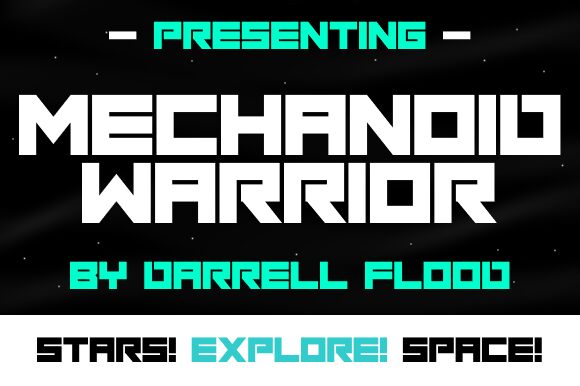
Mechanoid Warrior Italic
Mechanoid Warrior Italic, from the Mechanoid Warrior font family, emerges as a commanding presence in the realm of typography. Designed by Hawtpixel, this bold display typeface exudes a futuristic aesthetic that is both assertive and unapologetically avant-garde. Its extra-expanded width and italicized stance create a dynamic tension that captures movement and speed, perfect for invoking the essence of technology and progress.
The stark contrast of its angular cuts against solid blocks of black makes it visually impactful—ideal for grabbing attention in high-tech branding, game interfaces, or promotional materials for science fiction films. The font's robust weight ensures it stands out even when used sparingly, allowing designers to make a statement with minimalistic layouts.
Mechanoid Warrior Italic is not just a font; it's an ode to modernity. Its unique characteristics offer endless creative possibilities where boldness and innovation are at the forefront. With such distinctive style cues, this typeface is set to propel your design into the next dimension of visual storytelling.